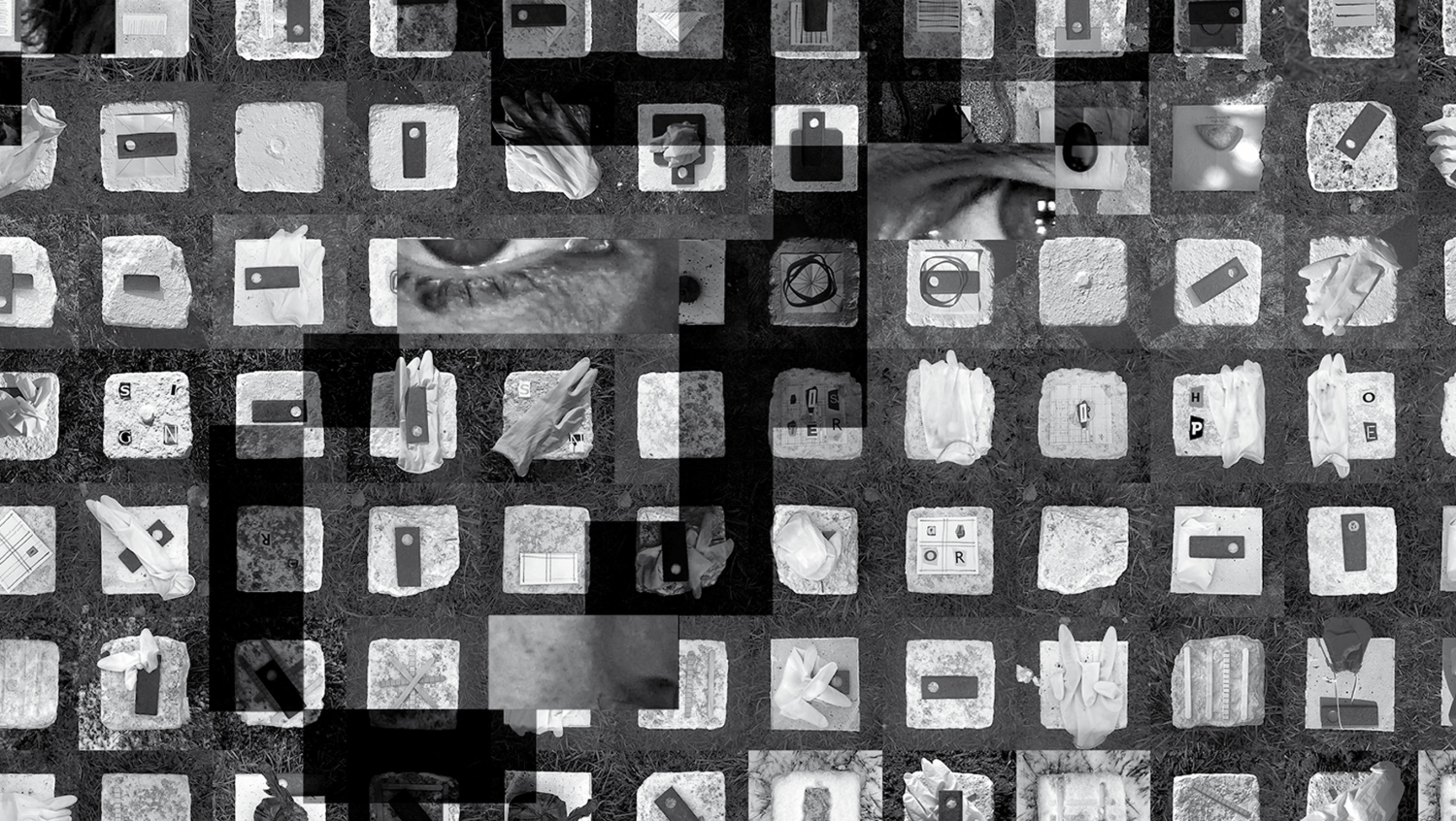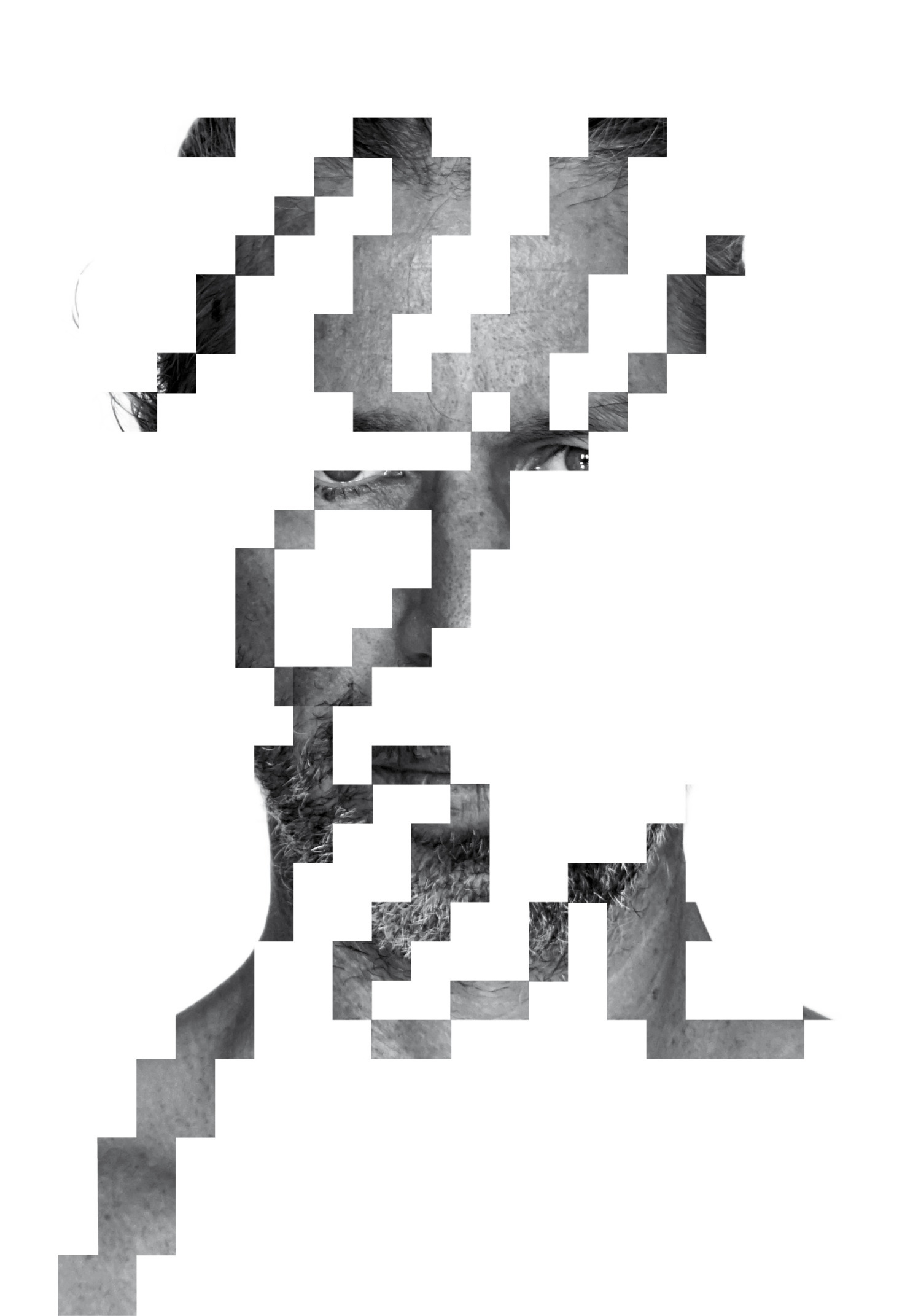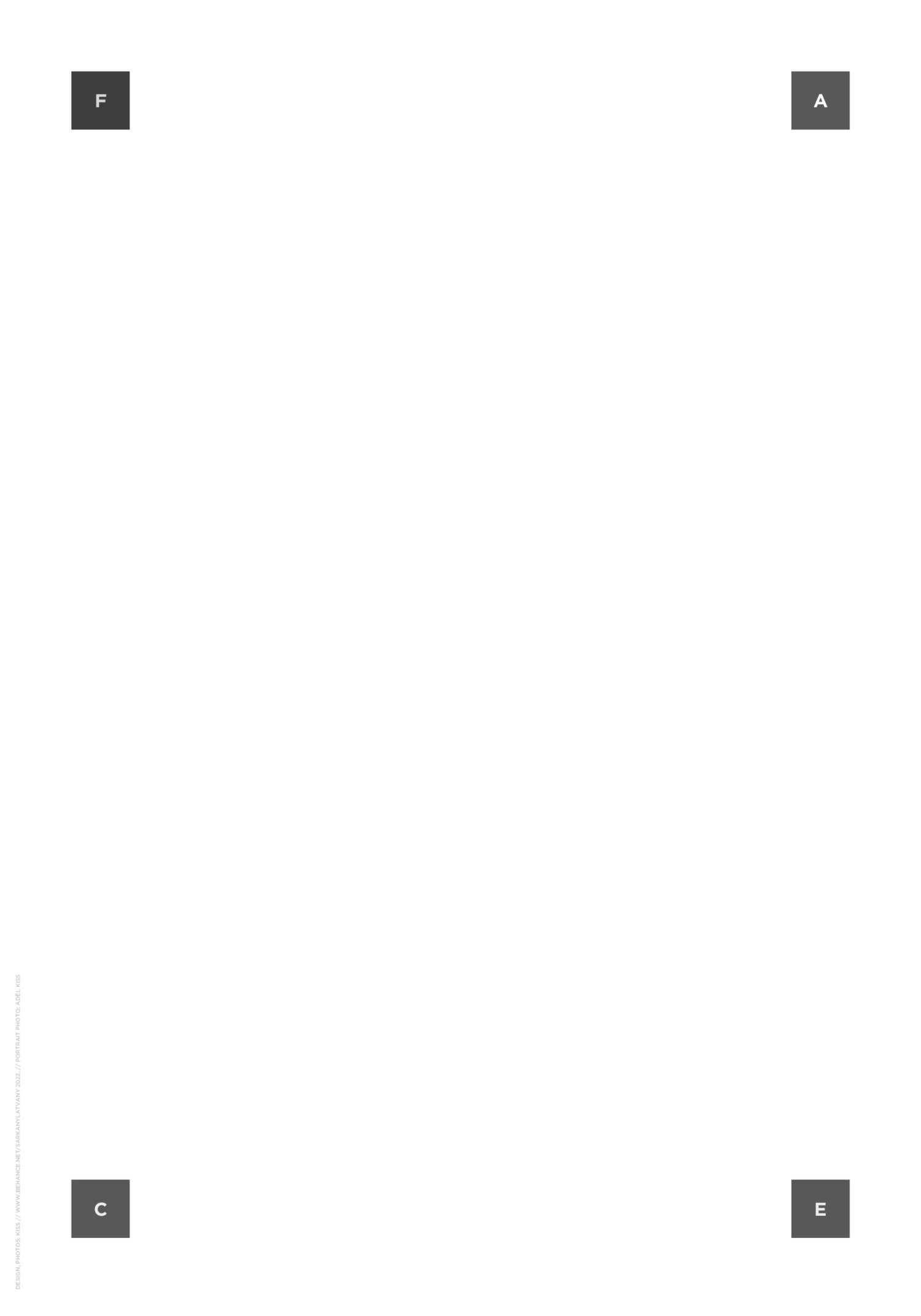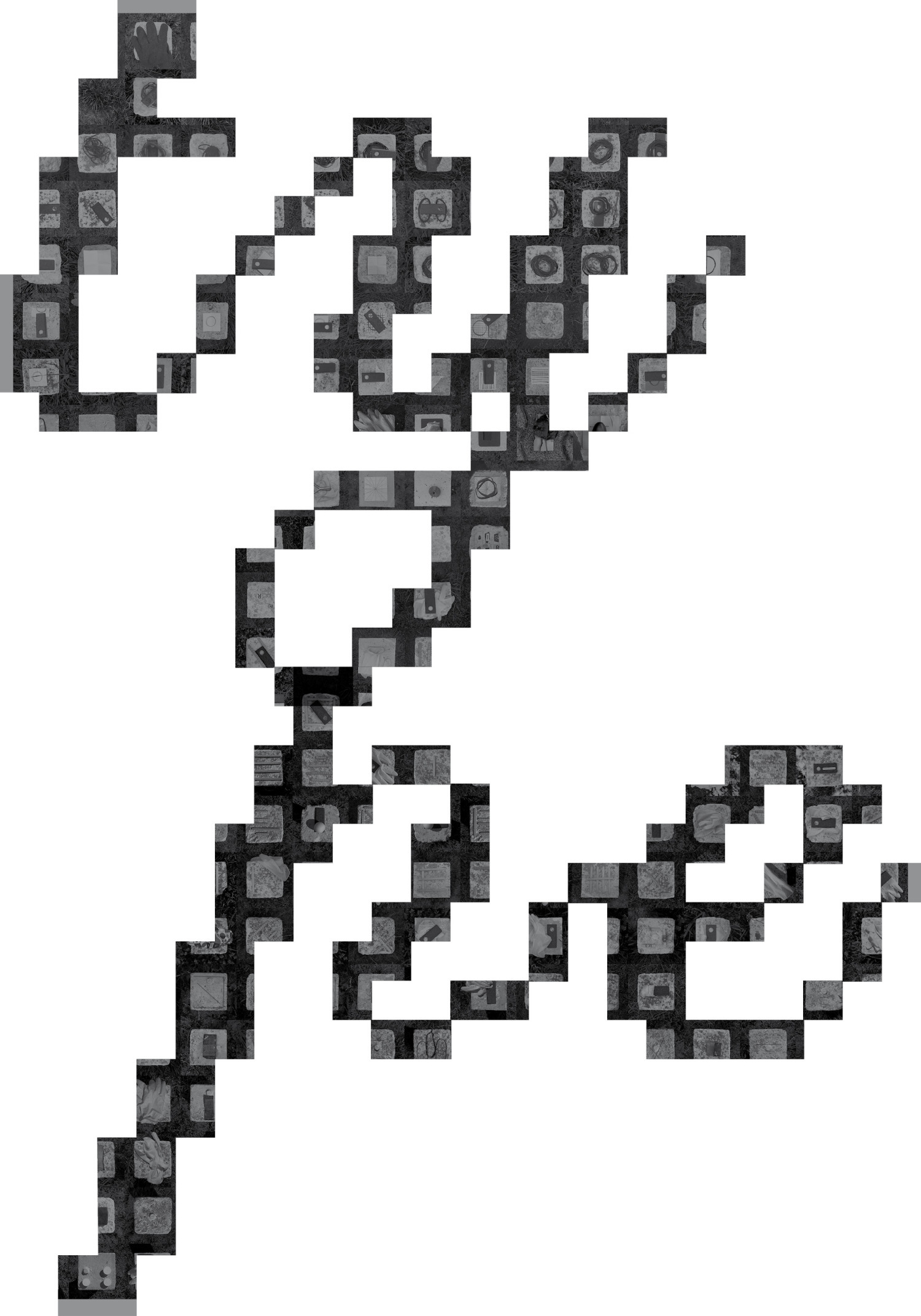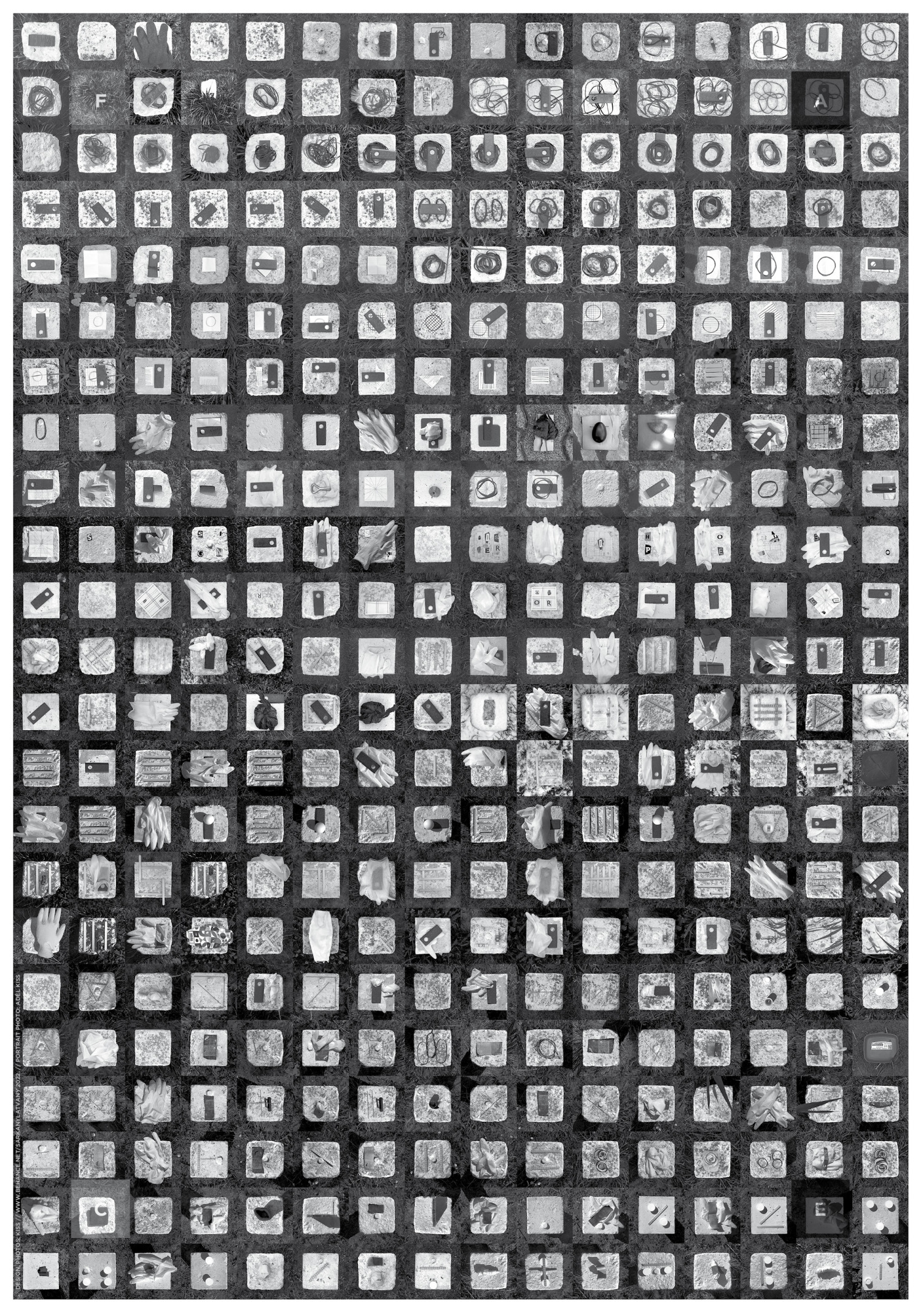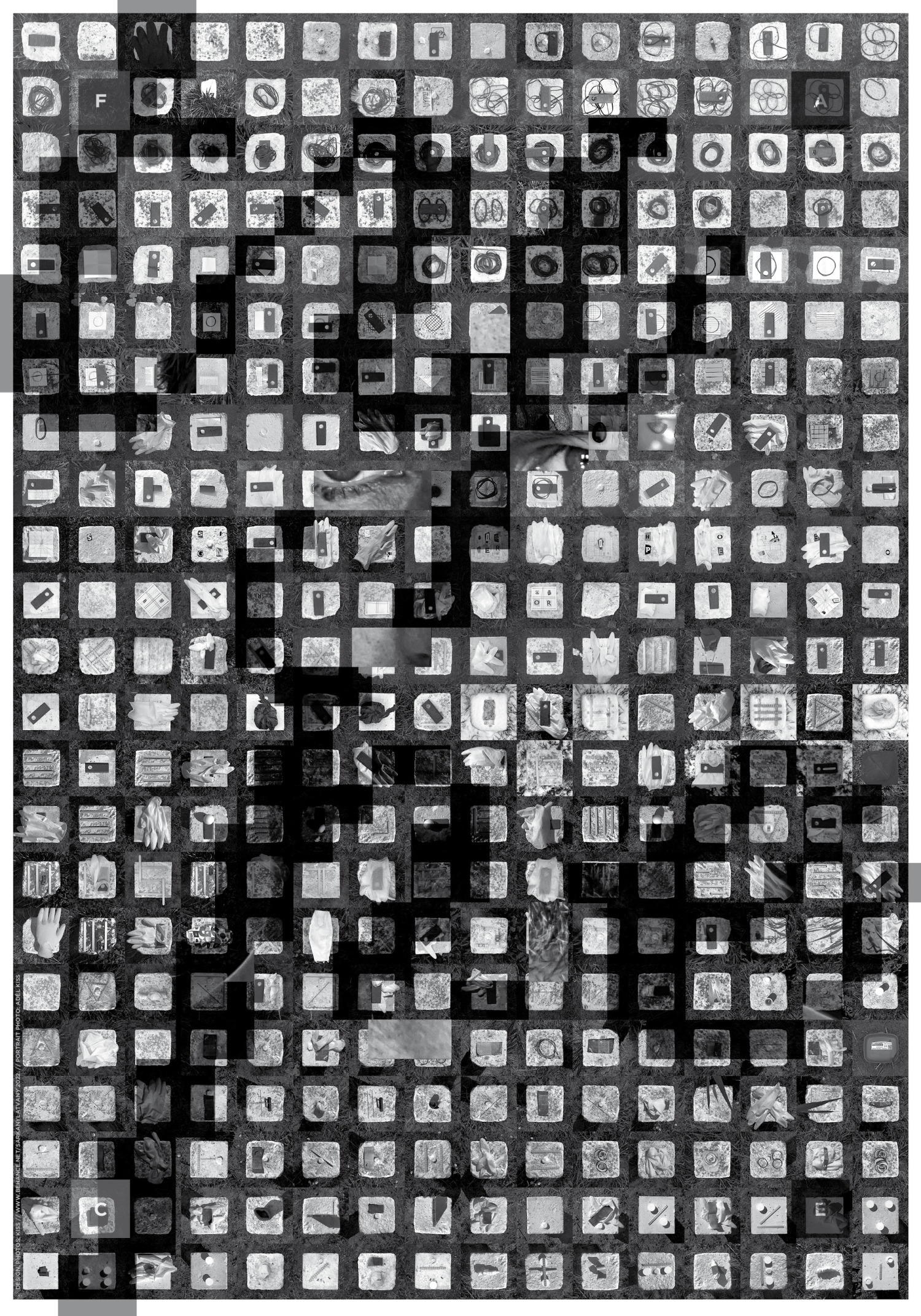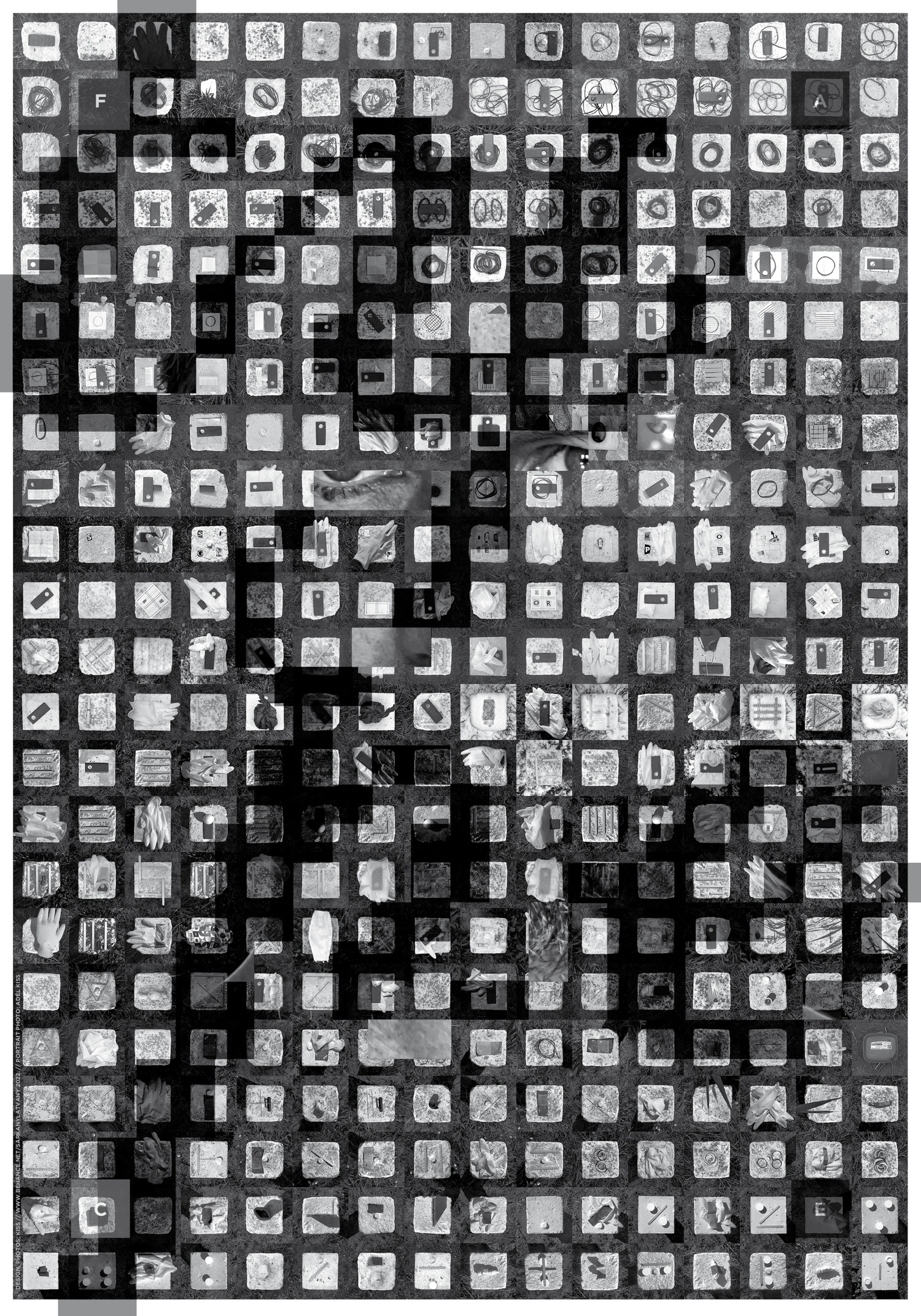
TypeFace, poster design, Osaka, Japan
TypeFace, poster design, Osaka, Japan - 1 by SarkanyLatvany
TypeFace
poster design, 100x70 cm, digital print 2022.
Description of the concept
I approached the face theme from a more unusual and layered approach: an inventory series of small photos accumulated during the pandemic form the basis of the design. 16x23 photos. 368 pieces. The product of more than a year. An inventory of personal items photographed with a cell phone during my weekly runs: childhood toys, my dad's artifacts, and then pandemic items: masks and rubber gloves, and a permanent found object, a piece of rusty iron.
The title typeface could be a pun, but my relationship with letters is a lifelong creed. I teach typography at university, and as a designer I use different fonts on a daily basis. The rhythm of the pixelated typeface is dissonant with the background: different rhythm and different scale. And on the top layer, pieces of my self-portrait flash in a few chopped rectangles (photo by my daughter).
Despite systematic collecting and the desire for an orderly life, fate sometimes messes up everything. The rhythm of everyday life changes.
On the border between design and art I tried to condense this into a visual message.
A tervezési koncepció
Az arc témához egy szokatlanabb és többrétegű megözelítésből közelítettem: a pandémia során felhalmozott apró fotók leltár-sorozata adja a terv alapját. 16x23 db fotó. 368 db. Több mint egy év termése. A heti futásaim közben mobiltelefonnal fotózott személyes tárgyak leltára: gyerekkori játékok, apukám tárgyi öröksége, majd a pandémia tárgyai: maszkok és gumikesztyűk és egy állandó talált tárgy, egy rozsdás vasdarab.
A typaface cím szójáték is lehetne, de a kapcsolatom a betűkkel egy életre szóló hitvallás. Tipográfiát tanítok az egyetemen, tervezőként is naponta használok különféle betűtípusokat.
A pixeles type felirat ritmusa disszonáns a háttérhez képest: más a ritmus és más a lépték.
A legfelső rétegen pedig néhány darabolt téglalapban az önarcképem darabjai villannak fel.
(A fotót a lányom készítette).
Hiába a szisztematikus gyűjtés és a vágy a rendezett életre a sors néha összekuszál mindent. Megváltozik a mindennapok ritmusa.
A design és a művészet határán ezt próbáltam egy képi üzenetbe sűríteni.